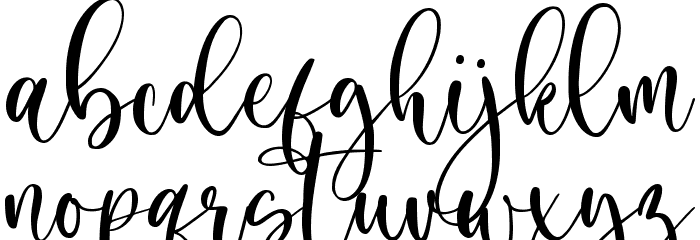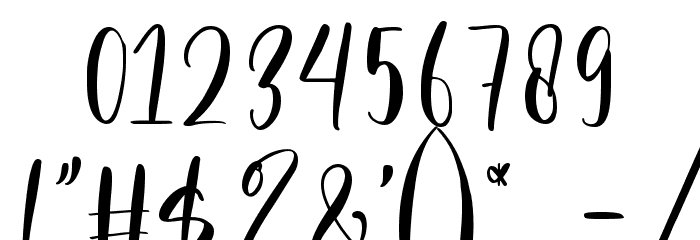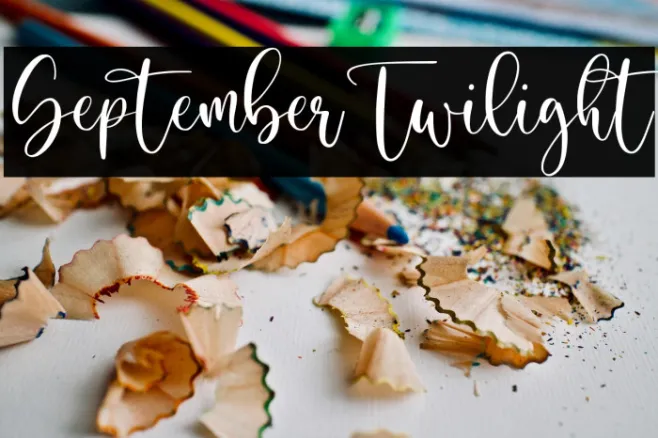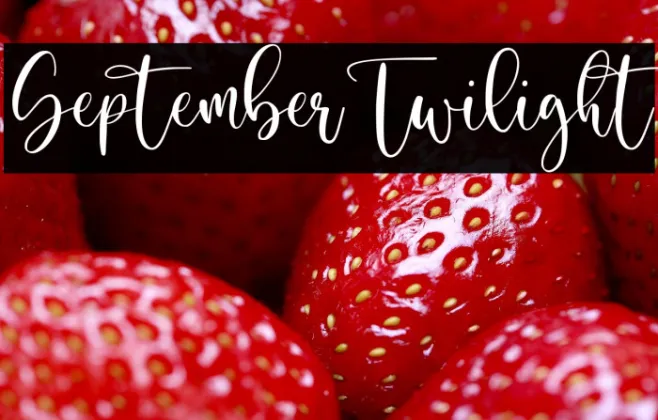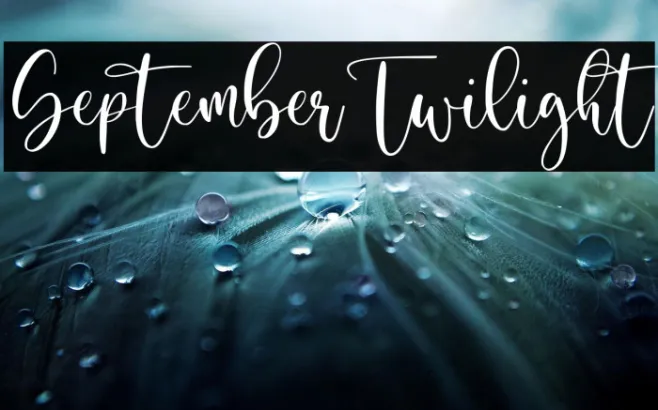
September Twilight Font
This font features an elegant and flowing script style, characterized by its smooth, cursive lines and artistic flair. The uppercase letters are tall and graceful, often with extended loops and swashes that add a sense of movement and sophistication. The lowercase letters maintain a consistent flow, with some characters featuring unique flourishes that enhance the overall aesthetic. Numbers are styled to match the script's fluidity, while special characters are thoughtfully integrated to maintain visual harmony. This font exudes a sense of romance and creativity, making it ideal for projects that require a personal and artistic touch.
A flowing, elegant script font with artistic swashes and flourishes.